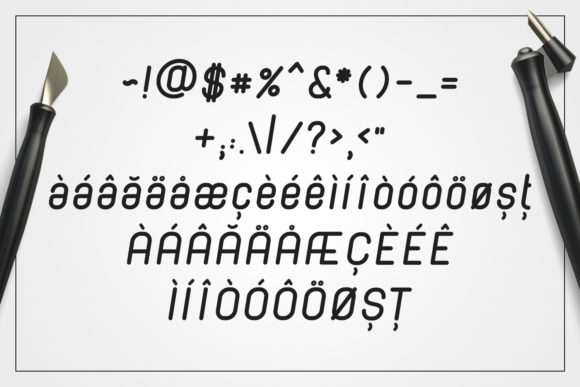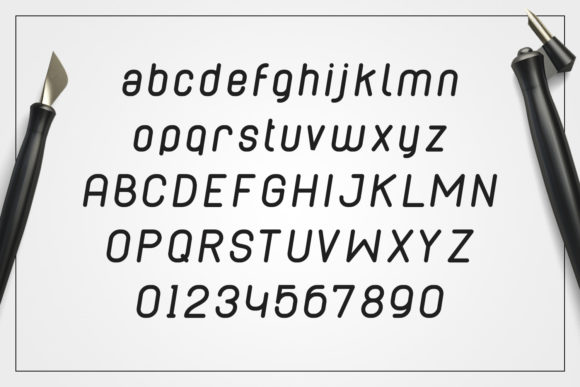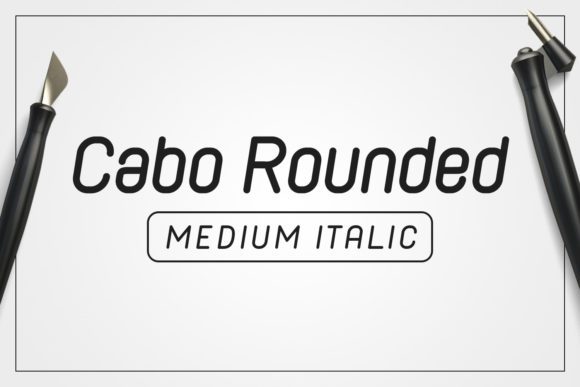
Cabo Rounded Medium Italic Font: Elevate Your Designs with Modern Elegance
In the world of typography, fonts play a crucial role in conveying the message and aesthetic of a design. For designers and crafters looking for a modern and clean sans serif font, Cabo Rounded Medium Italic is an excellent choice. This versatile font can easily be matched to an incredibly large set of projects, making it a valuable addition to your creative arsenal.
What is Cabo Rounded Medium Italic?
Cabo Rounded Medium Italic is a contemporary sans serif font that boasts a clean and elegant design. Its rounded edges and smooth lines give it a friendly and approachable feel, making it perfect for a wide range of applications. Whether you’re working on a branding project, a website, or a craft, this font is sure to make your designs stand out.
Key Features of Cabo Rounded Medium Italic
- Modern and Clean Design: Cabo Rounded Medium Italic features a sleek and modern design that will give your projects a fresh and contemporary look.
- Sans Serif Font: As a sans serif font, Cabo Rounded Medium Italic is perfect for designs that require a clean and minimalist aesthetic.
- Rounded Edges: The rounded edges of this font give it a friendly and approachable feel, making it ideal for designs that require a softer touch.
- Highly Versatile: Cabo Rounded Medium Italic can be used in a wide range of projects, from branding and advertising to web design and crafting.
Why Choose Cabo Rounded Medium Italic?
With so many fonts available, why choose Cabo Rounded Medium Italic? Here are just a few reasons why this font stands out:
- Ease of Use: Cabo Rounded Medium Italic is incredibly easy to use, making it perfect for designers and crafters of all skill levels.
- High Readability: The clean and simple design of this font ensures high readability, even at smaller sizes.
- Unique Style: Cabo Rounded Medium Italic has a unique style that will set your designs apart from the crowd.
Using Cabo Rounded Medium Italic in Your Designs
So, how can you use Cabo Rounded Medium Italic in your designs? Here are a few ideas to get you started:
- Branding and Logo Design: Use Cabo Rounded Medium Italic to create a modern and elegant brand identity.
- Web Design: This font is perfect for web design, with its clean and simple design ensuring high readability on a range of devices.
- Crafting and DIY Projects: Add a touch of modern elegance to your crafting and DIY projects with Cabo Rounded Medium Italic.
Tips for Pairing Cabo Rounded Medium Italic with Other Fonts
Pairing fonts can be a daunting task, but here are a few tips for pairing Cabo Rounded Medium Italic with other fonts:
- Pair with Bold Fonts: Pair Cabo Rounded Medium Italic with bold fonts for a striking contrast.
- Use with Script Fonts: Combine Cabo Rounded Medium Italic with script fonts for a elegant and sophisticated look.
- Experiment with Serif Fonts: Don’t be afraid to pair Cabo Rounded Medium Italic with serif fonts for a unique and interesting combination.
| Font Name | Cabo Rounded Medium Italic Font |
| Author | Design A Lot |
Cabo Rounded Medium Italic is a versatile and modern sans serif font that is perfect for a wide range of design projects. Its clean and elegant design, combined with its highly readable and unique style, make it an excellent choice for designers and crafters. Whether you’re working on a branding project, a website, or a craft, Cabo Rounded Medium Italic is sure to elevate your designs and make them stand out.